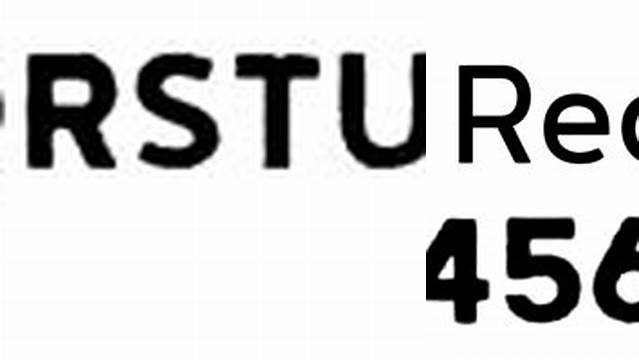
Hey there, design enthusiasts! Are you on the hunt for a cool, stylish font that can jazz up your projects without breaking the bank? Well, look no further because we're diving headfirst into the world of the NOYH Cafe Regular font, and the best part? You can snag it for free! That's right, we're talking about a completely free download, ready to elevate your designs from meh to magnificent. This article is your ultimate guide to everything NOYH Cafe Regular: what makes it special, where to find it, how to use it, and some cool ideas to get your creative juices flowing. Let's get started, shall we?
NOYH Cafe Regular Font: A Stylish Introduction
Okay, guys, let's talk about the NOYH Cafe Regular font itself. This font isn't just another typeface; it's a statement. It's got that cool, modern vibe that's perfect for everything from branding to website headers, social media graphics, and even print materials. Its clean lines and slightly condensed design make it incredibly versatile. You can see how it can blend in perfectly, as the font can be used in a variety of different use-cases. The font is clear and readable, with enough character to stand out. That's what makes the font so special and popular among designers and creatives everywhere. You will love using this font!
This font is typically used in a variety of different creative projects. The beauty of this font is its flexibility. Whether you're a seasoned designer or just starting out, the NOYH Cafe Regular font is easy to incorporate into your workflow. Its simplicity allows it to work seamlessly with other design elements, making it a great choice for both bold statements and subtle accents. So, if you're looking for a font that's both stylish and functional, the NOYH Cafe Regular font is definitely worth a look.
NOYH Cafe Regular Font: Design Applications
Alright, let's get to the fun part: what can you actually do with the NOYH Cafe Regular font? The possibilities are pretty much endless, but here are a few ideas to get your creative engines revving.
First off, branding! The NOYH Cafe Regular font is a fantastic choice for creating a brand identity. This is because the font can be easily used for logos, business cards, and website headers. The clean, modern aesthetic of this font will help create a professional look for your brand. Next is website design. This font is a great choice for creating a clean, modern website. Use it for headings, subheadings, and body text. This will make your website look very polished. Don't forget about social media graphics. The NOYH Cafe Regular font will make your social media graphics stand out from the crowd. Create eye-catching posts and stories. These graphics can be shared and can help your brand or business gain some traction. And finally, we have print materials! The NOYH Cafe Regular font is also perfect for print materials such as posters, flyers, and brochures. The font's readability ensures that your message is clear and easy to understand. So, whether you're starting a new business or just want to give your existing projects a fresh look, the NOYH Cafe Regular font is a great choice.
Branding with NOYH Cafe Regular Font
When it comes to branding, the NOYH Cafe Regular font is a real winner. It's a font that exudes a modern yet approachable feel, perfect for businesses that want to appear both stylish and friendly. The font's clean lines and balanced proportions make it ideal for logos. Imagine your brand name written in this font – it's instantly recognizable and memorable, which is a key element in any successful brand identity. The versatility of this font means it looks great across different mediums: on your website, business cards, social media profiles, and even packaging. Using the same font consistently across all your branding materials helps create a cohesive and professional image. Consistency is key, guys! This approach reinforces your brand's identity in the minds of your audience, making them more likely to remember and connect with your business. It’s a smart investment that pays off in the long run.
The font's simplicity is another advantage. In a world saturated with complex designs, the NOYH Cafe Regular font stands out by keeping things clean and easy to read. This ensures that your message is clear, even at a glance. It’s particularly effective for businesses that value clarity and simplicity. So, if you're looking to create a brand that's both modern and approachable, the NOYH Cafe Regular font is a fantastic place to start. It is a powerful tool in building a brand identity that resonates with your target audience and makes a lasting impression. From the logo to the website design, the font ties everything together, creating a cohesive and professional look that will set your brand apart.
Website Design with NOYH Cafe Regular Font
Incorporating the NOYH Cafe Regular font into your website design can significantly enhance its visual appeal and user experience. The font's clean and modern aesthetic lends itself perfectly to a variety of website styles, from minimalist portfolios to bustling e-commerce platforms. The font is perfect for headings, subheadings, and body text, which creates a sense of visual harmony and makes your content more readable. This ensures that your website visitors can easily scan and absorb the information you're presenting. The font's clarity is particularly beneficial for body text, as it prevents eye strain, encouraging visitors to spend more time on your site.